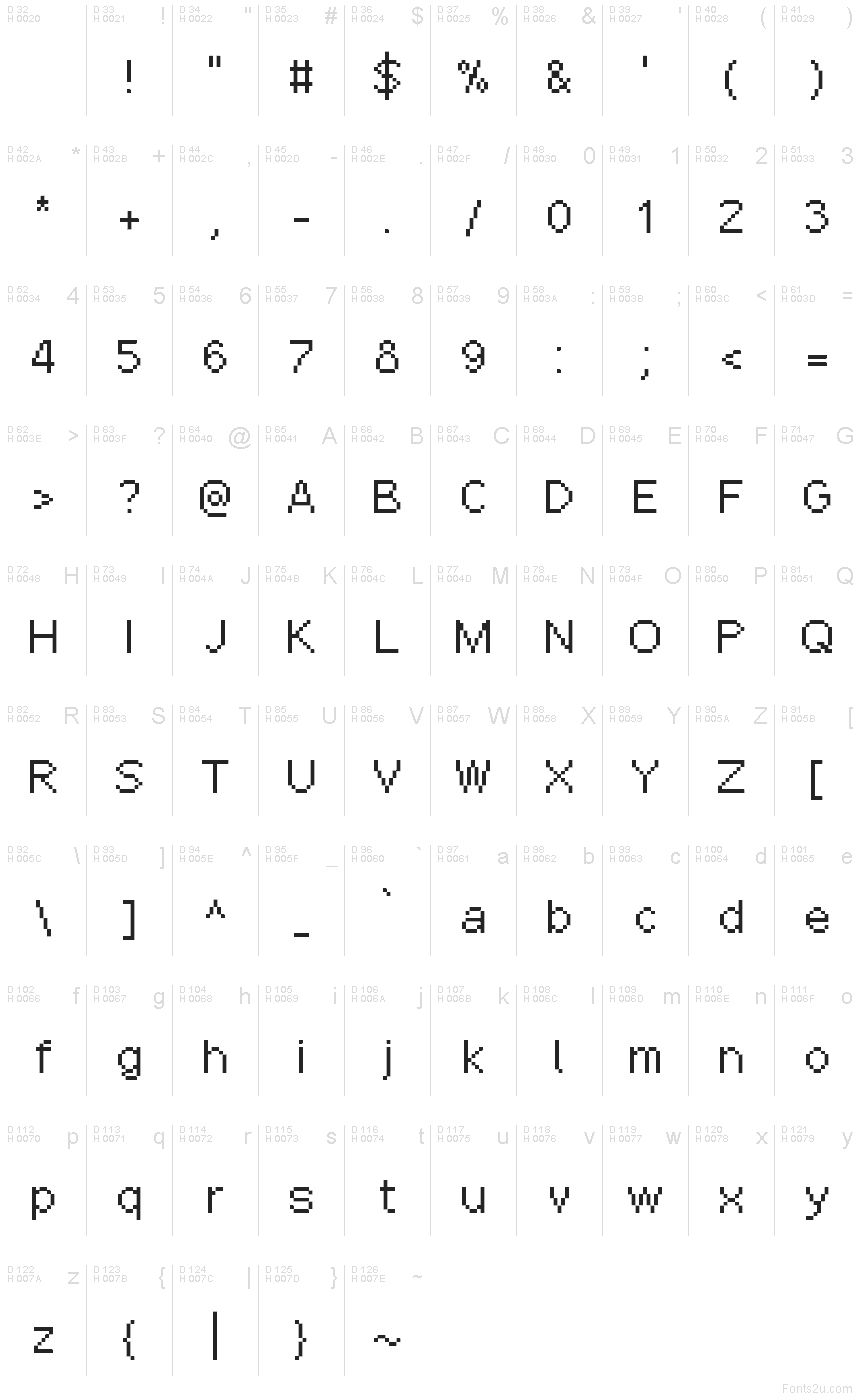
Pixelbasel
Pixelbasel font by GGBotNet is a bitmap typeface with a distinctly pixelated and geometric feel. Its retro digital aesthetic evokes the nostalgic vibe of early computer graphics, making it a great fit for projects that need that vintage touch.